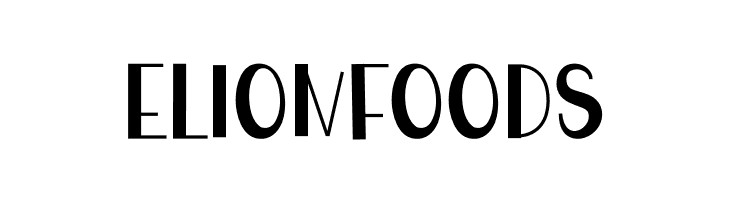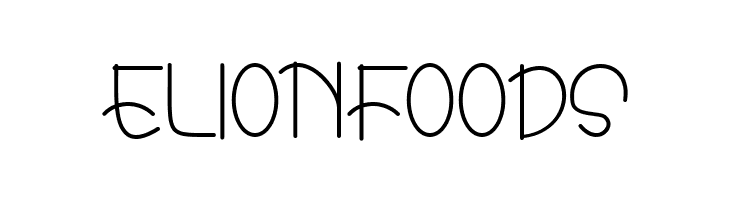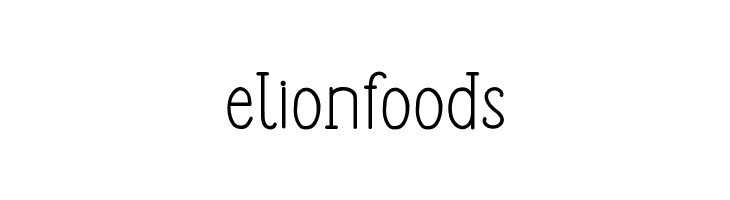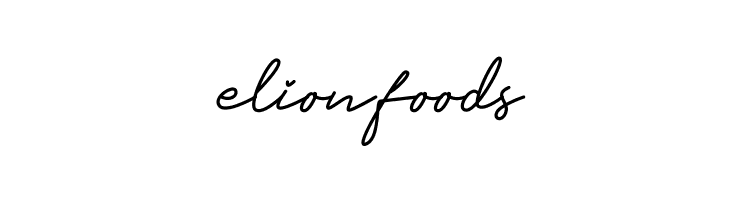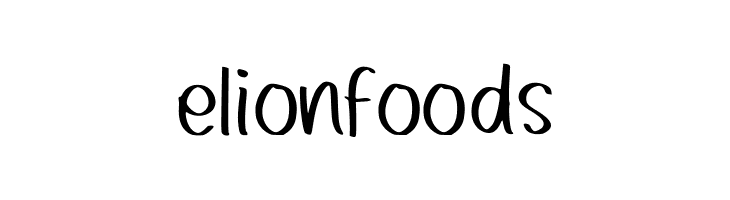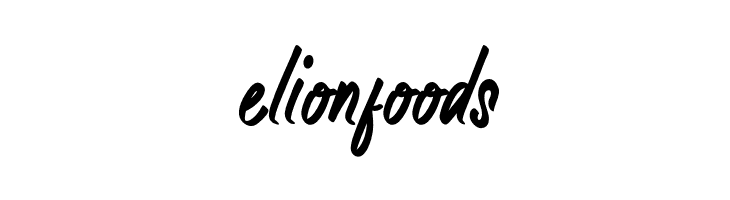
A playful and artistic font with bold, irregular letterforms.
A whimsical, playful font with thin lines and gentle curves, ideal for creative projects.
An elegant, cursive handwritten font with smooth, flowing strokes.
A geometric, military-inspired font with clean lines and structured forms.
A playful, handwritten-style font with smooth curves and a casual appearance.
A fluid and elegant cursive script font with a natural handwritten style.
A playful, handwritten font with smooth curves and a casual style.
A dynamic script font with fluid, connected strokes and a hand-drawn feel.
A bold, handwritten font with a playful and organic style.
An elegant and sophisticated script font with flowing, cursive letterforms.